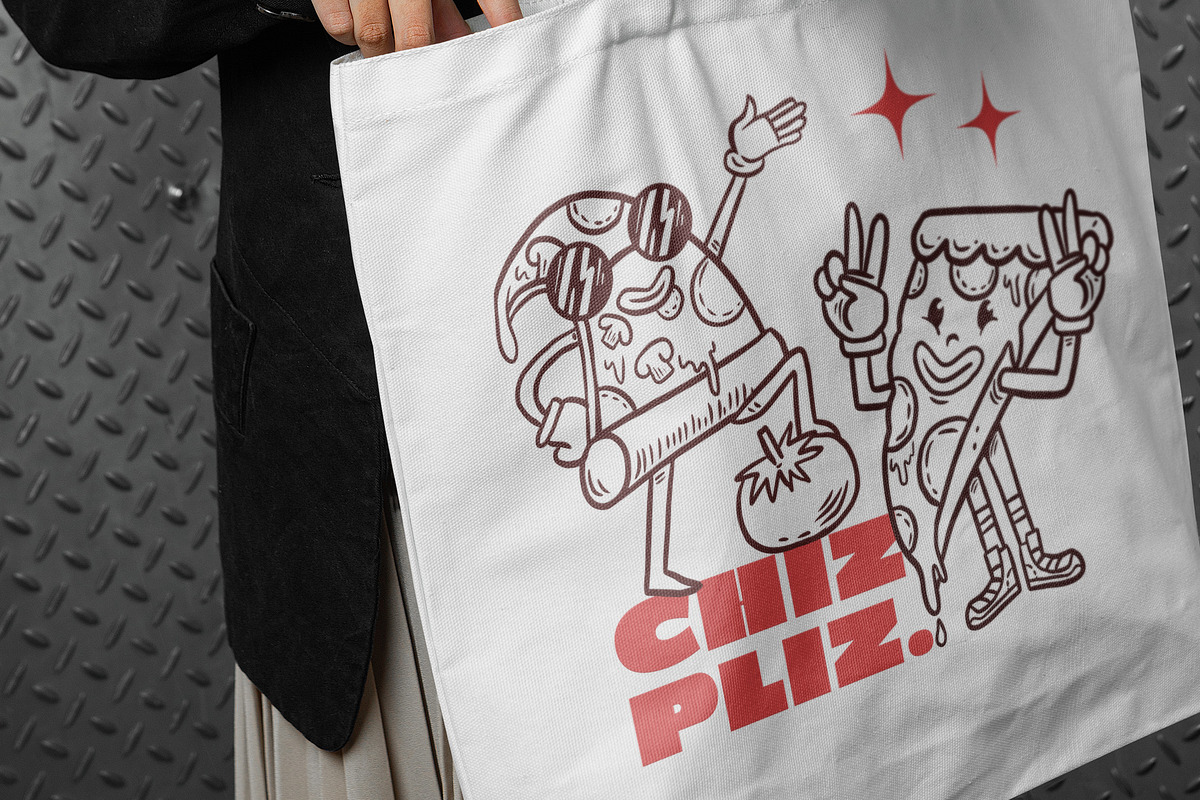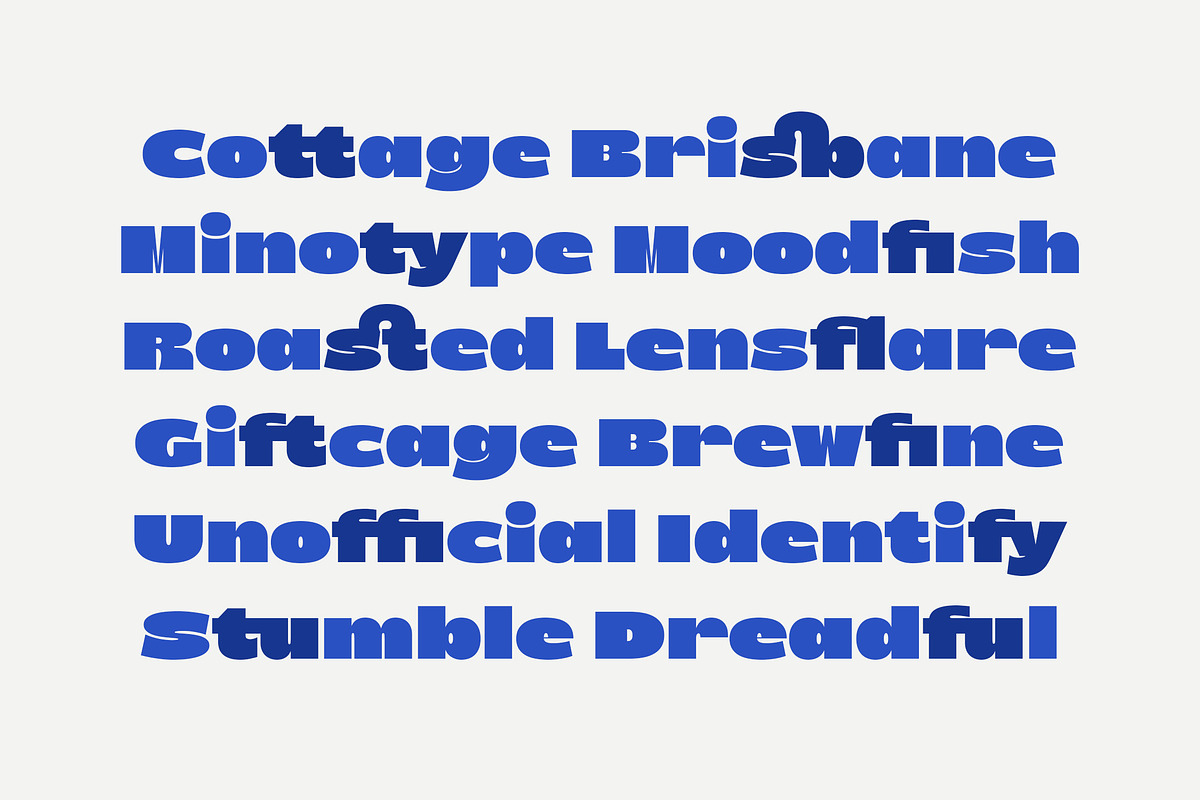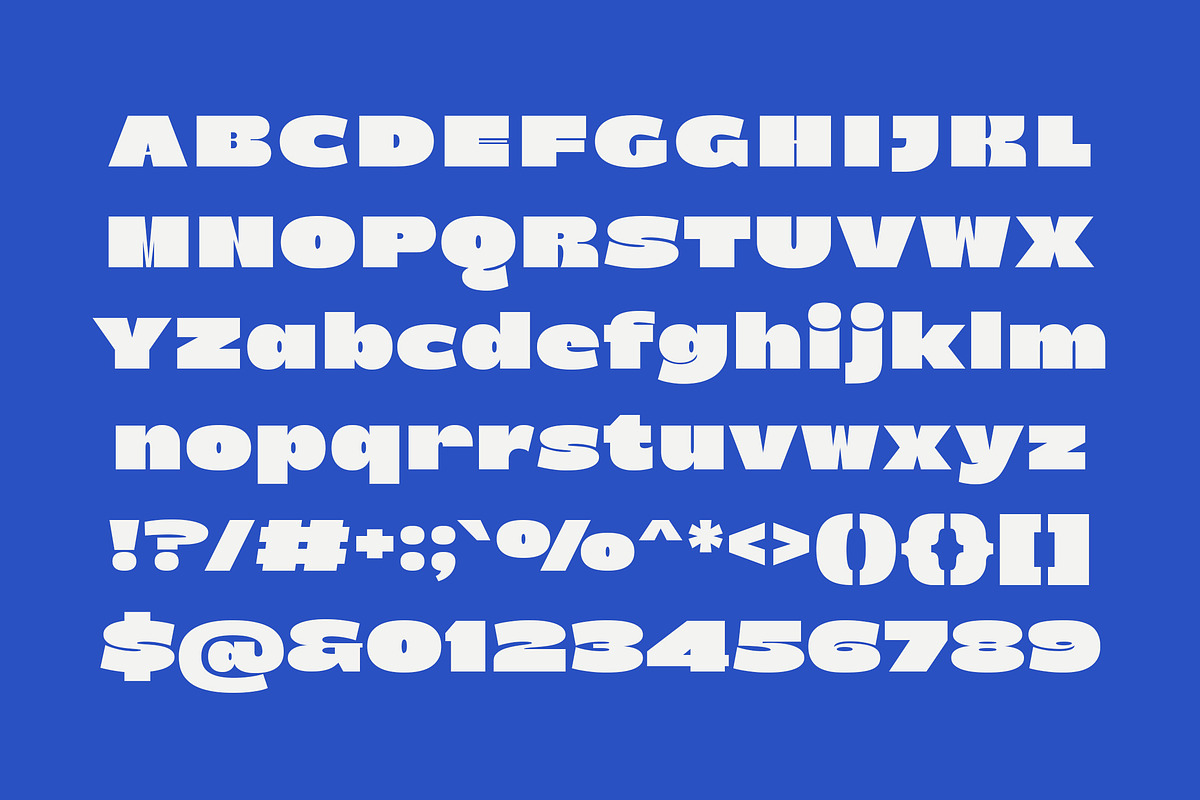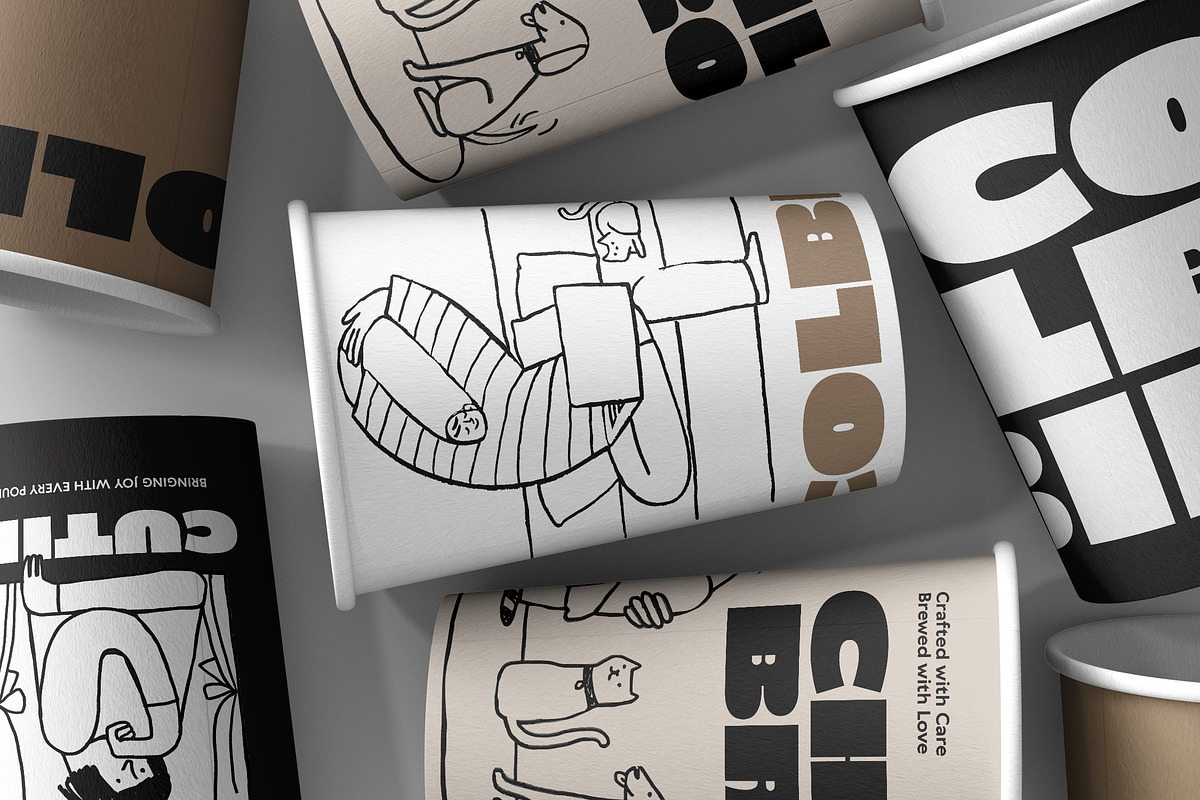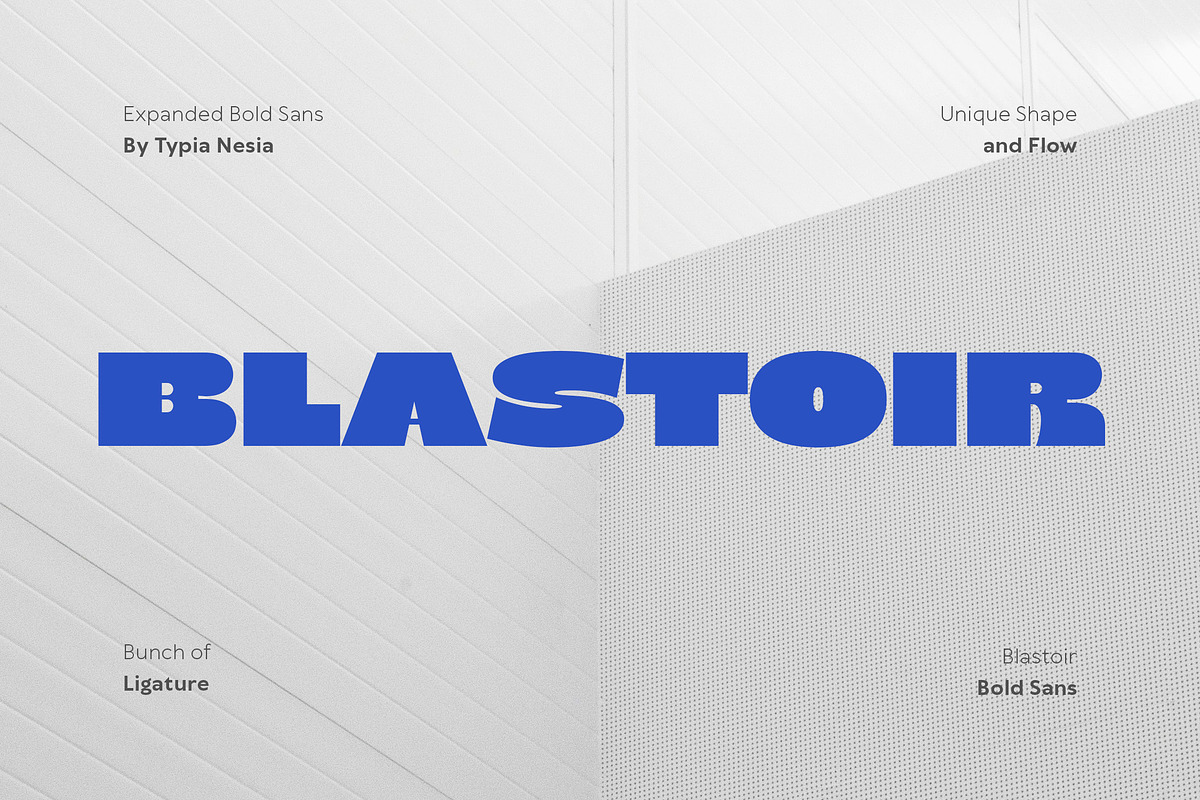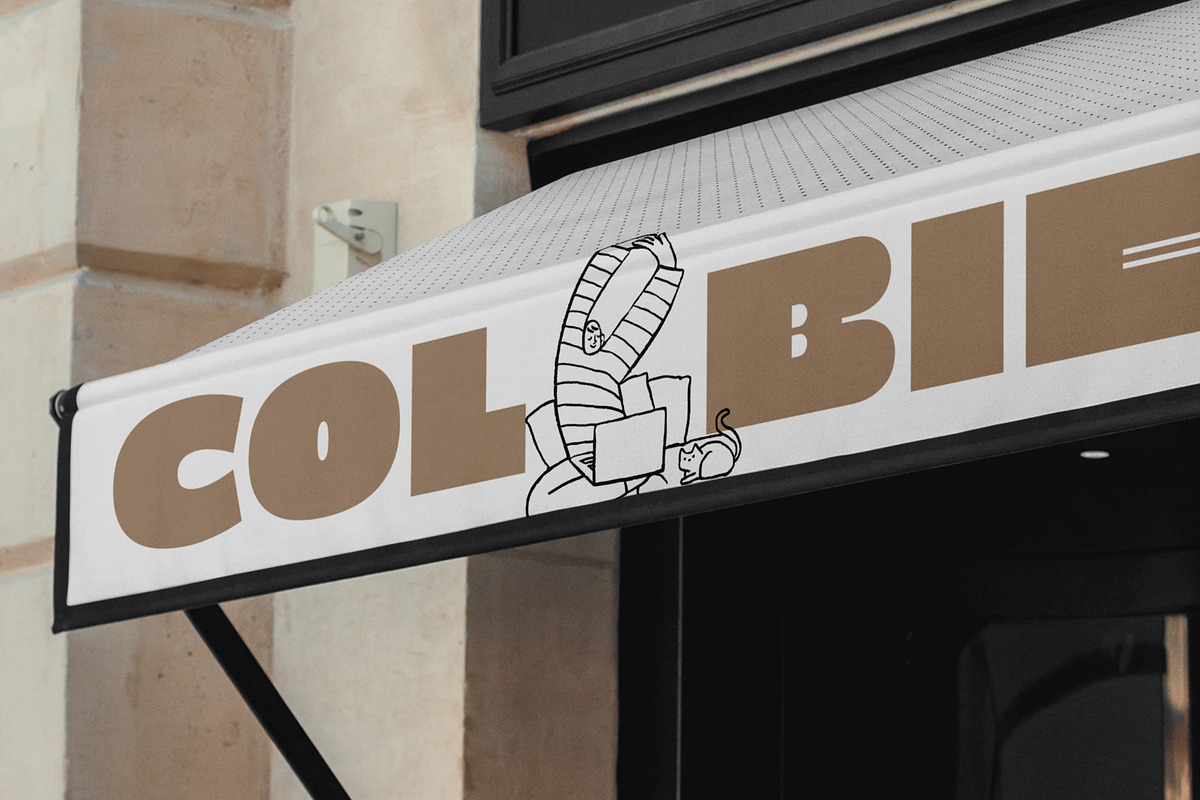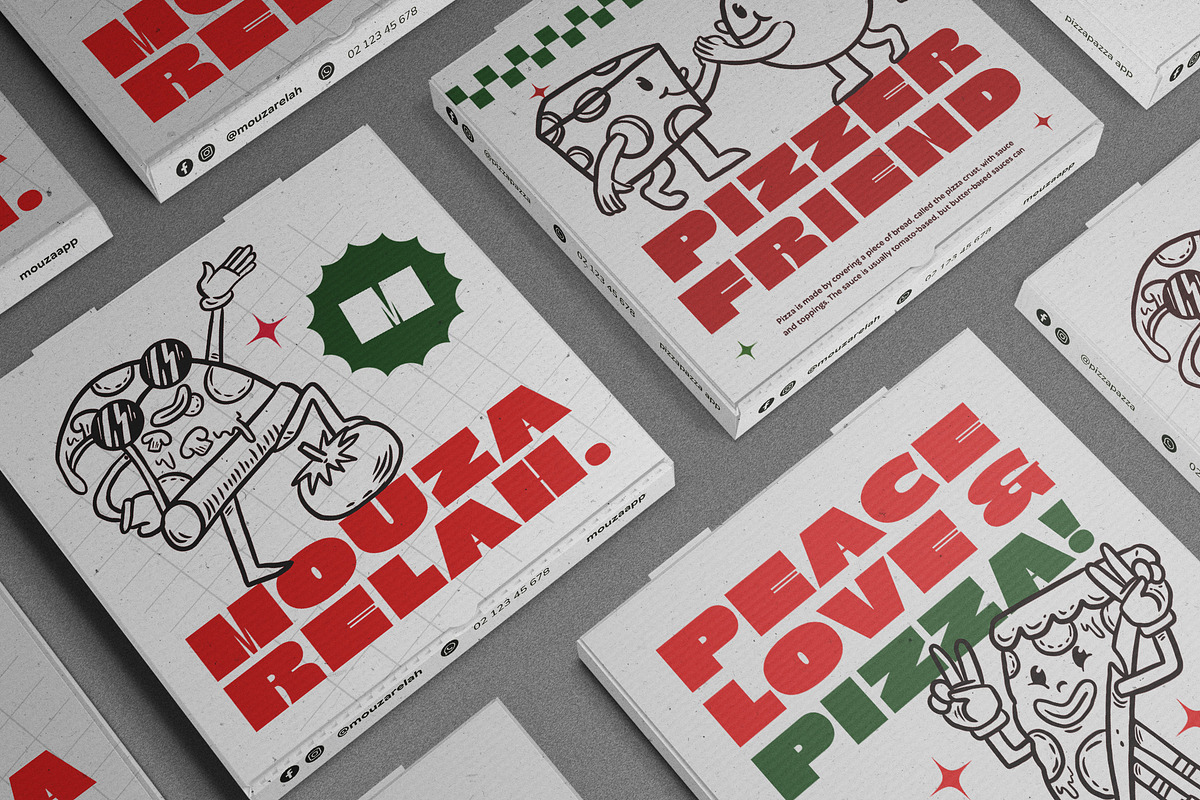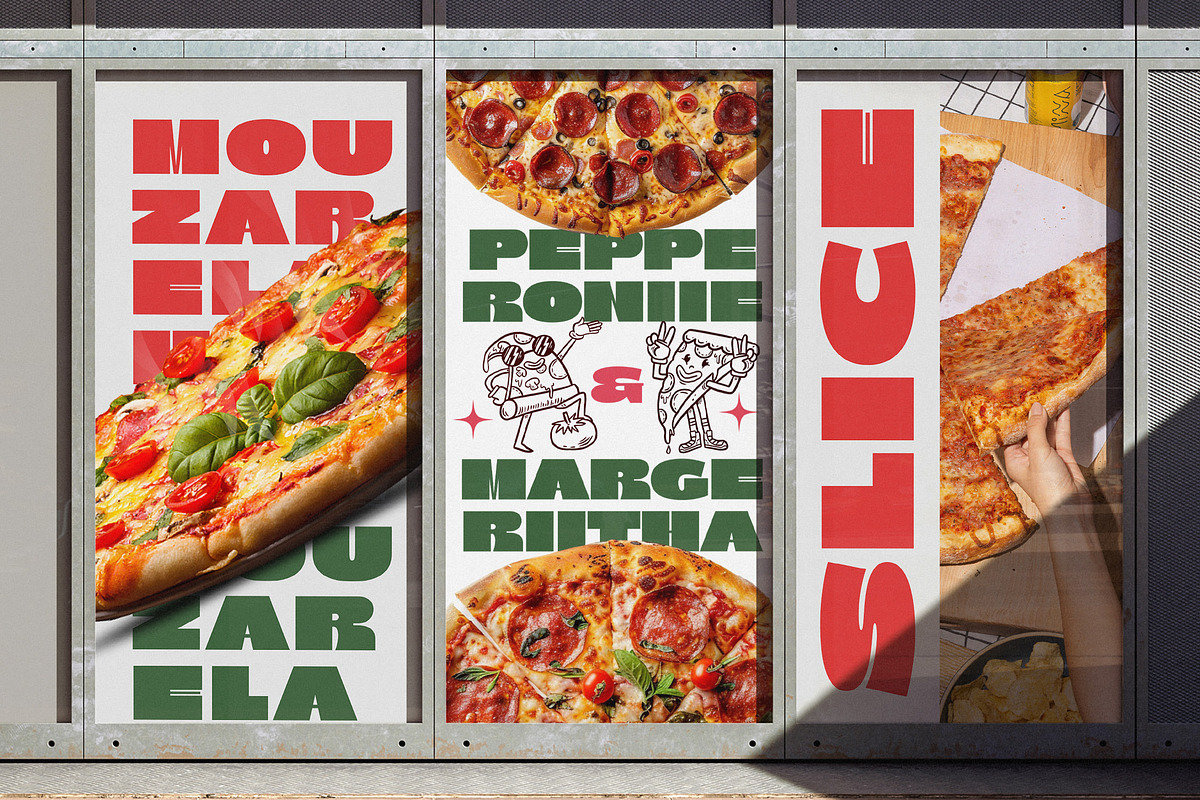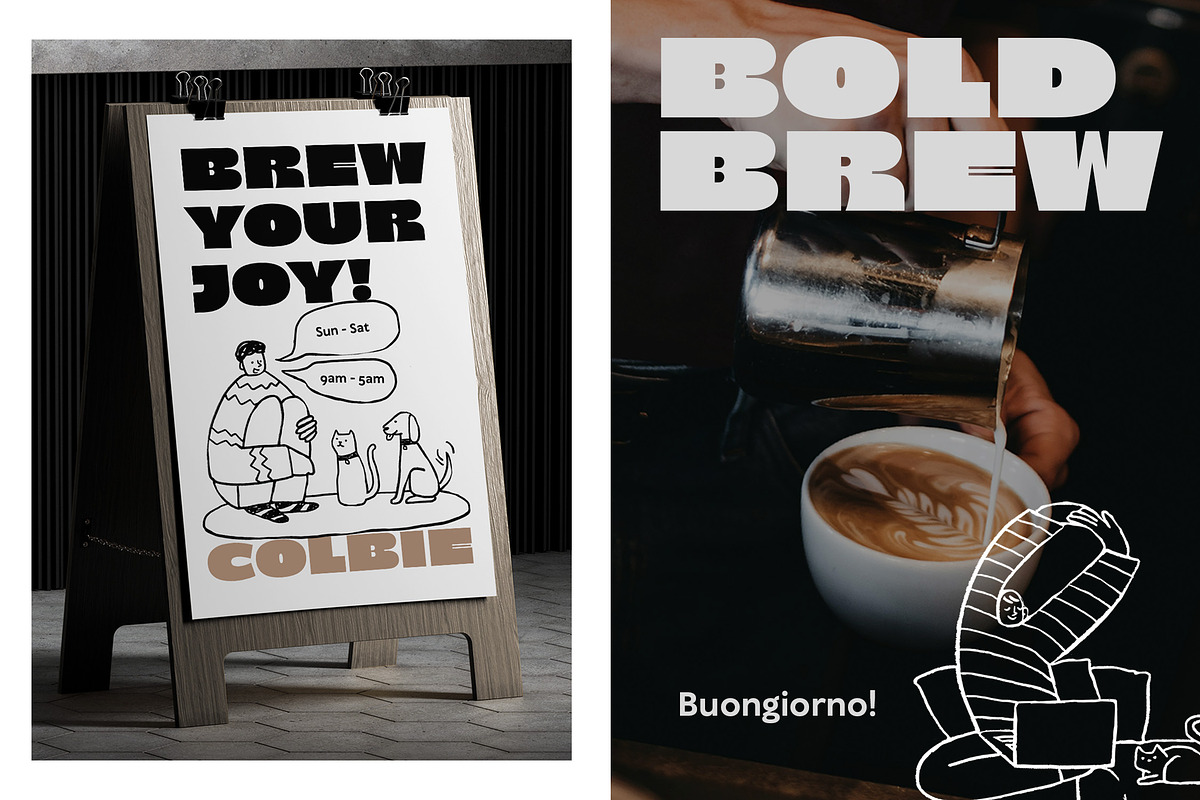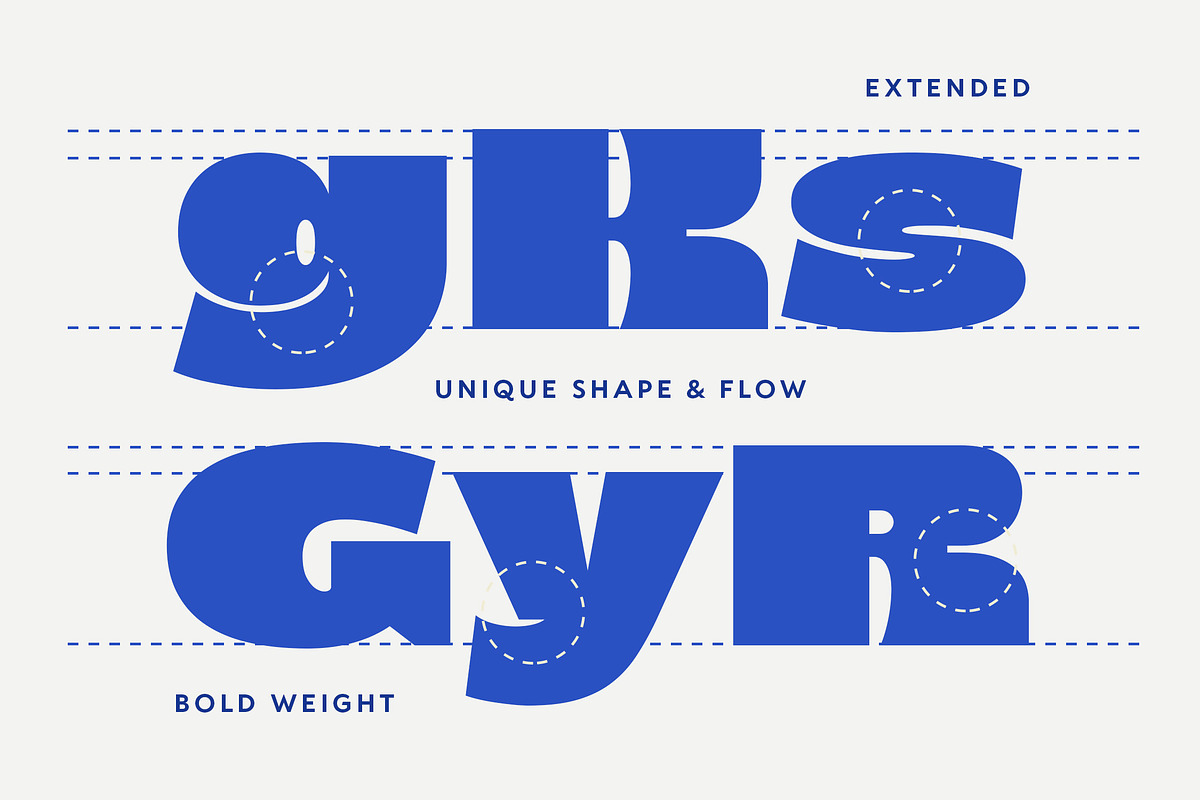
Blastoir - Expanded Bold Sans Serif
Blastoir - Expanded Bold Sans Serif Font - Modern Rounded Display Font
Blastoir is an expanded bold sans serif font designed to make a powerful visual statement. With its rounded letterforms and bold strokes, Blastoir is the perfect blend of strength and modernity, ideal for projects that demand a commanding and impactful look, such as branding, headlines, posters, packaging, logo designs, merchandise, apparel, advertising campaigns and anymore. Comes with a complete set of uppercase and lowercase letters, punctuation, numerals, and ligatures, along with stylish alternates for added customization. With multilingual support, this font ensures your designs can communicate effectively across different languages and cultures. Ideal for professionals seeking a bold and contemporary look, Blastoir enhances your designs with its confident, clean, and modern sans serif style. Its an excellent choice for creating eye-catching and memorable designs.